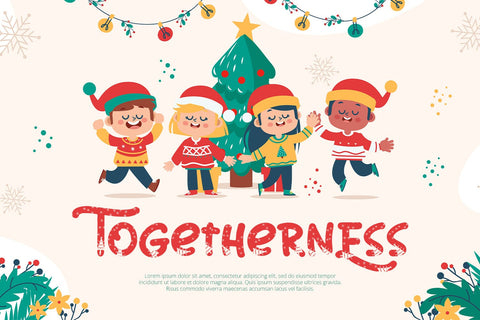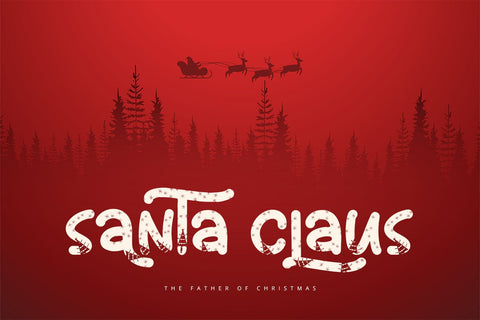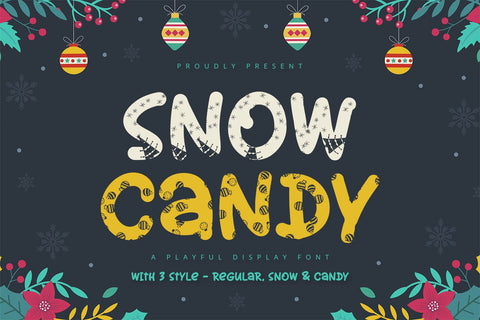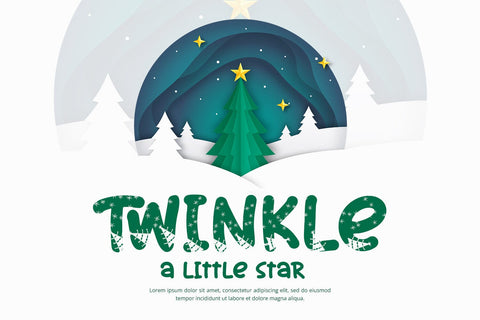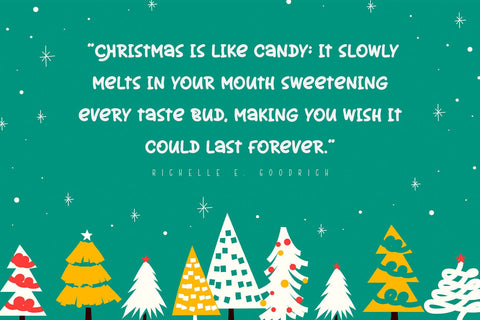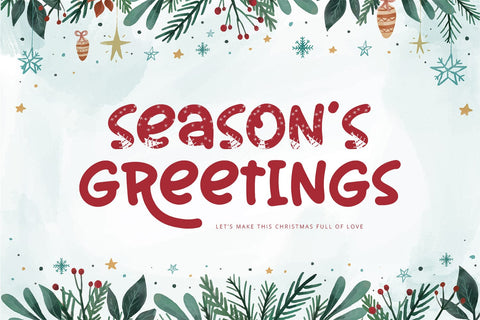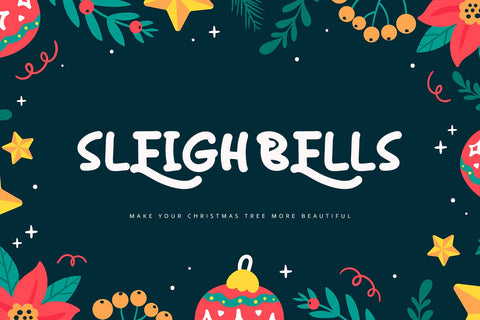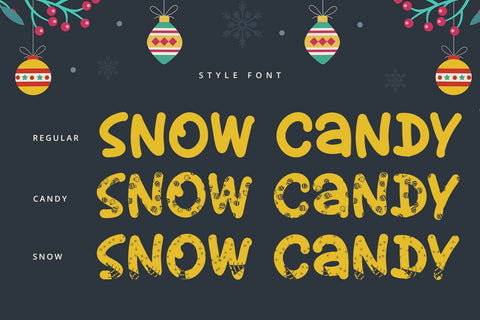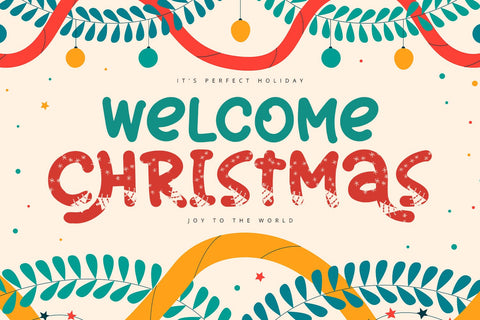
Snow Candy - Playful Display Font
Snow Candy is a playful display font with fun and unique style. It will be perfectly used for Branding, Logo Design, Lettering, Logotype, Clothing, Poster, magazine, packaging, posters, shopping bags, t-shirts, book covers, photography, special events and other design project.